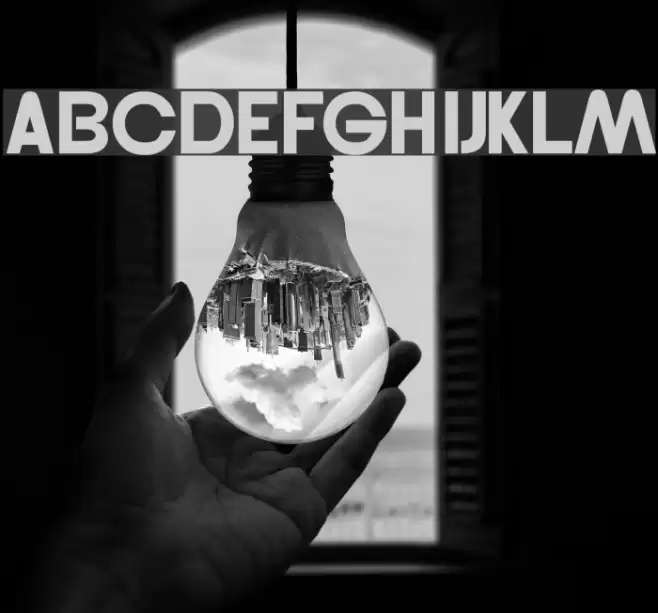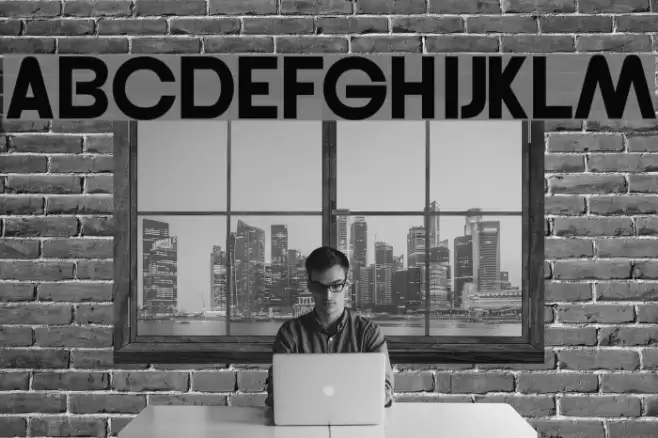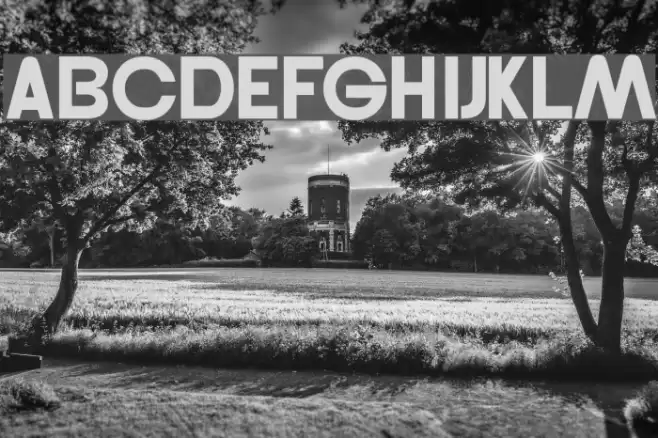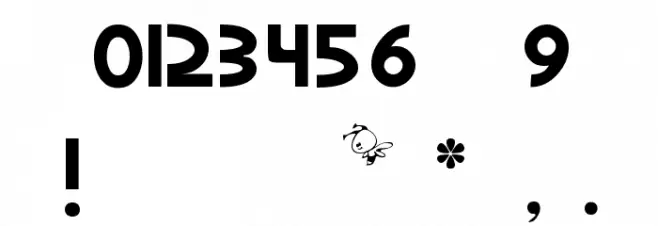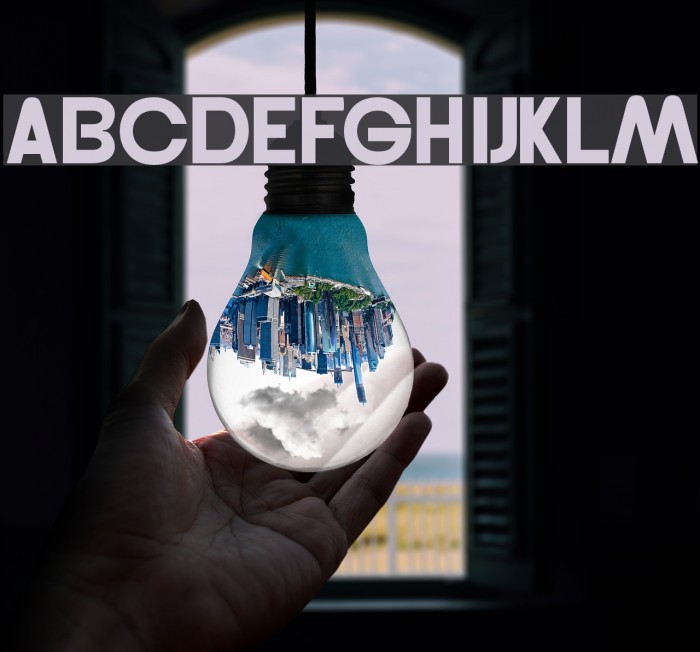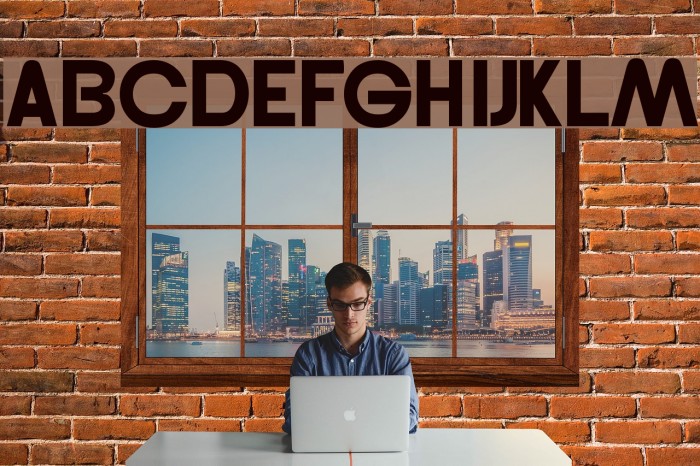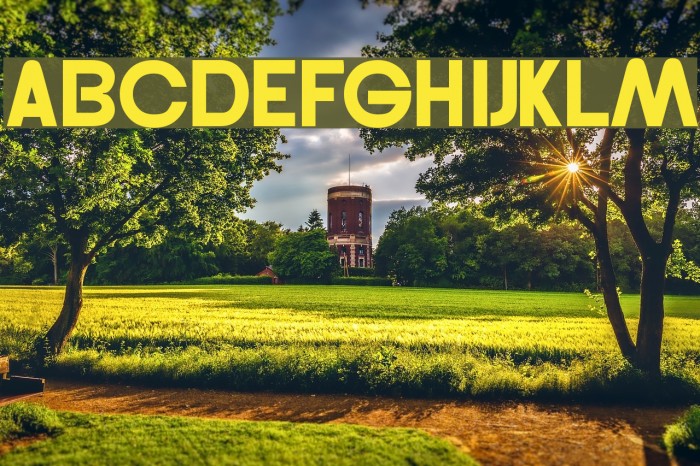
Gordon Regular Font
Gordon Regular Description
This font features a bold and geometric design with clean lines and a modern aesthetic. The uppercase letters are strong and assertive, while the lowercase characters maintain a consistent style with rounded edges. The numerals are clear and easily readable, complementing the overall design. Special characters are creatively integrated, adding a unique touch to the font's appearance. The uniformity in stroke width across all characters provides a cohesive look, making it suitable for various design applications.
A bold, geometric font with clean lines and a modern aesthetic from Futuristic fonts.